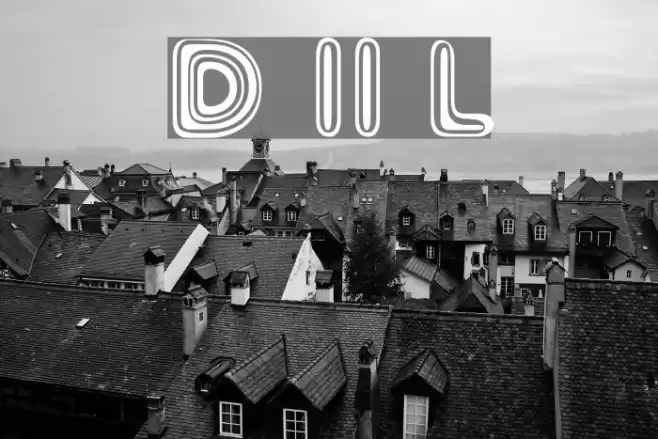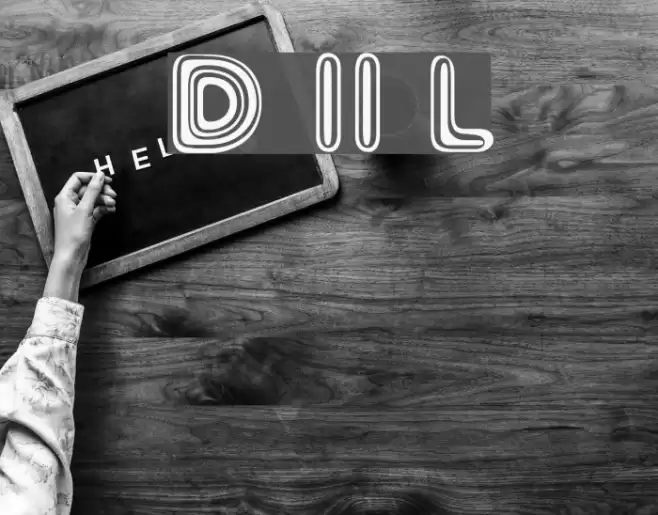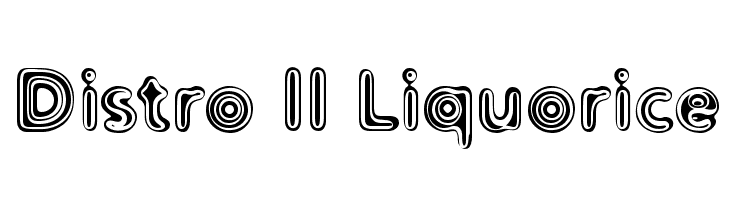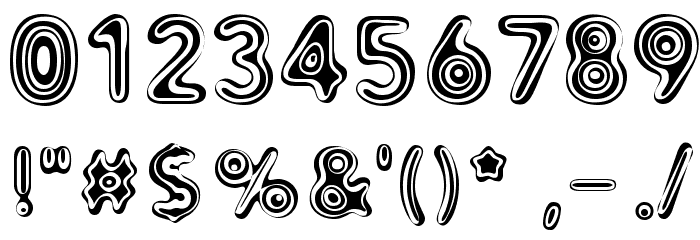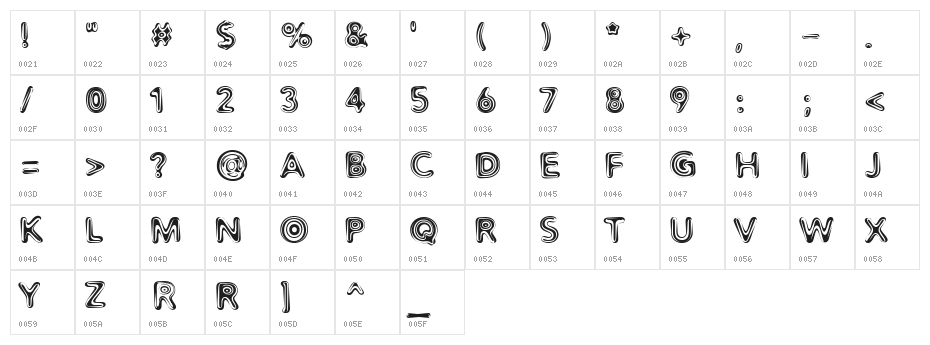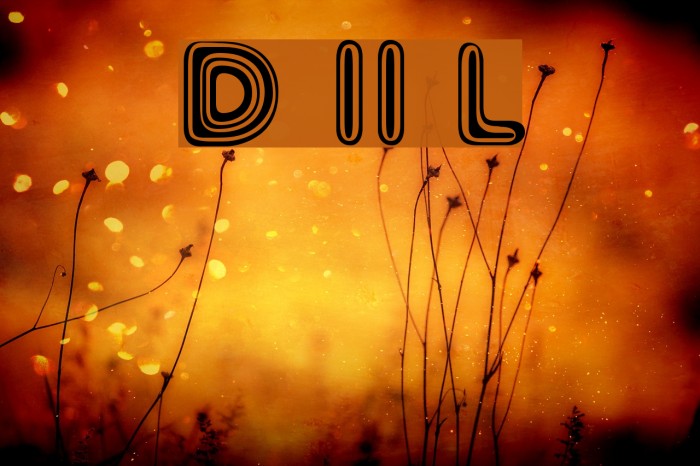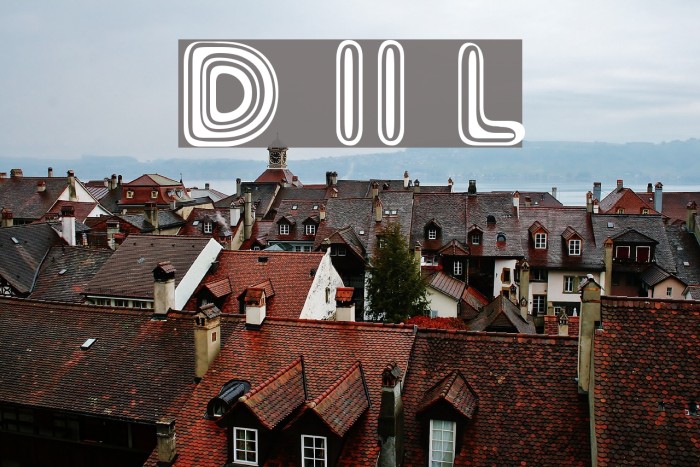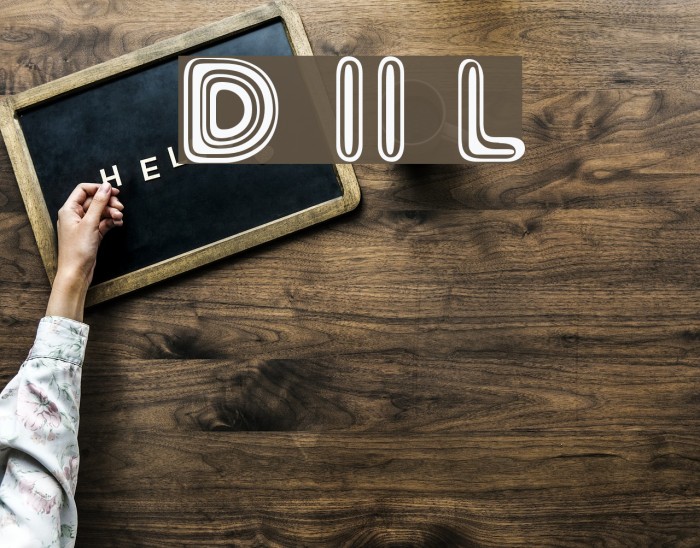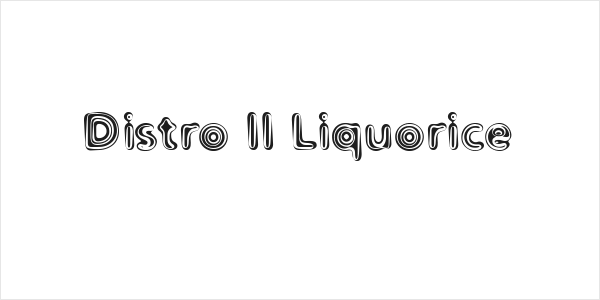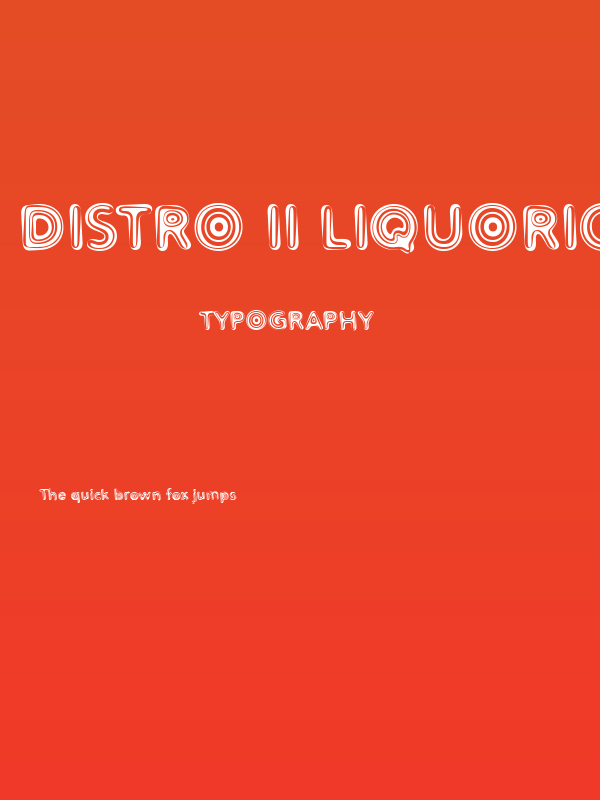
Distro II Liquorice Font
Distro II Liquorice Description
This font features a playful and bold design with a unique outline style that gives each character a three-dimensional effect. The letters are rounded and have a bubble-like appearance, making them stand out with a distinct personality. The font maintains consistent thickness throughout, contributing to its cohesive look. It is eye-catching and ideal for projects that require a fun and lively aesthetic. The characters are well-spaced, ensuring readability while maintaining their decorative appeal. This font is perfect for creative projects that aim to capture attention and convey a sense of whimsy.
A playful, bold font with a unique outline and bubble-like design from Distorted Eroded fonts.
- Proposed Projects: Ideal for children's books, playful branding, party invitations, and creative posters.